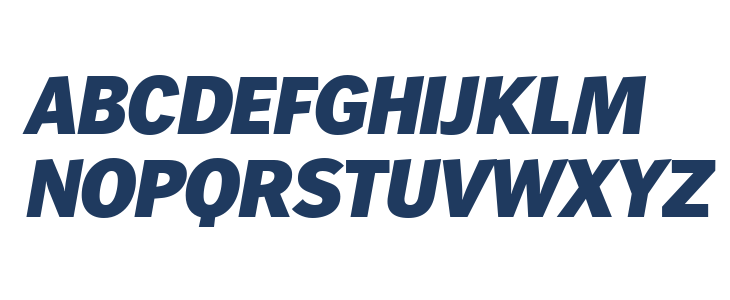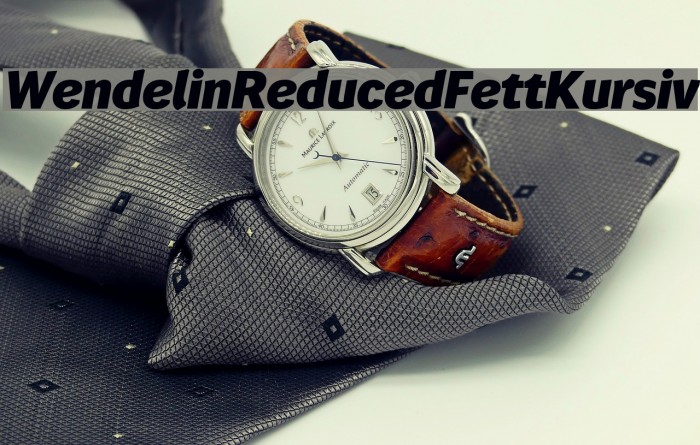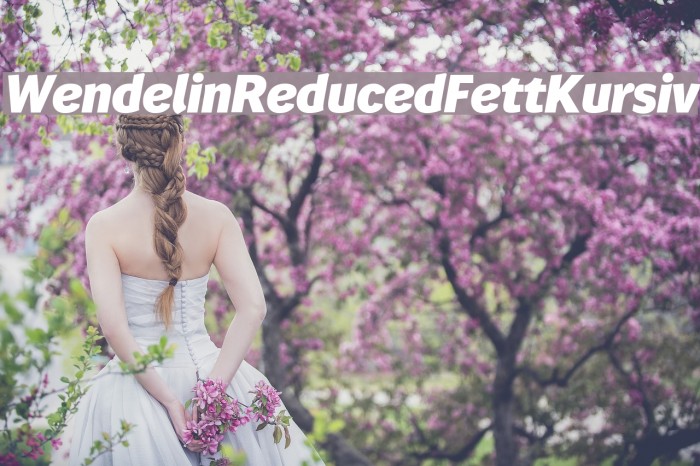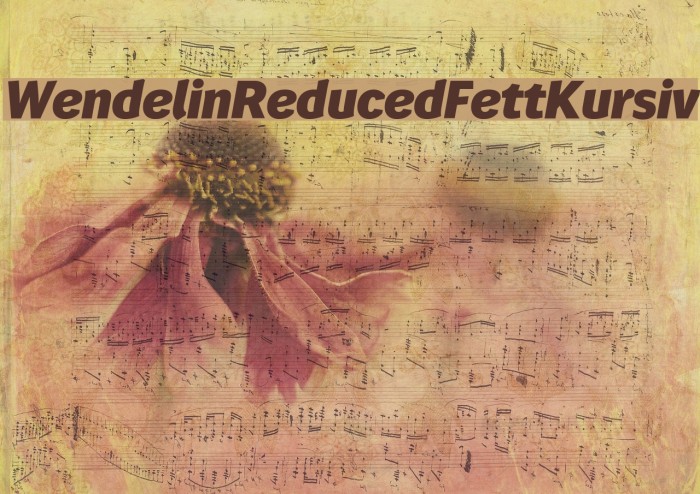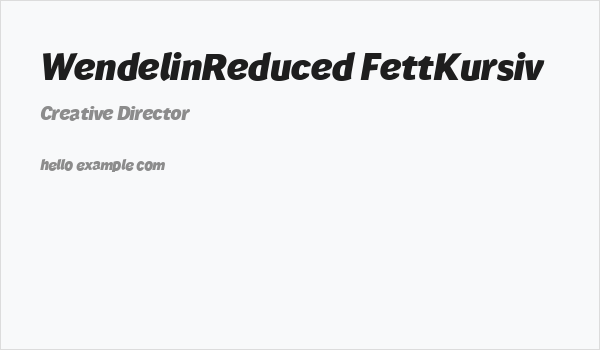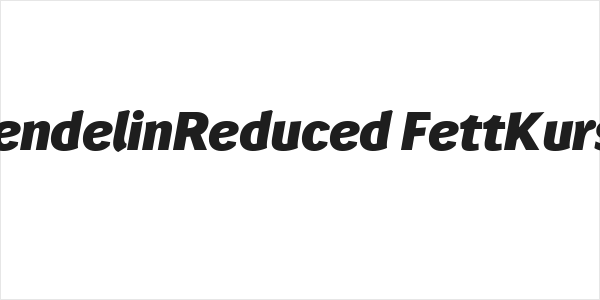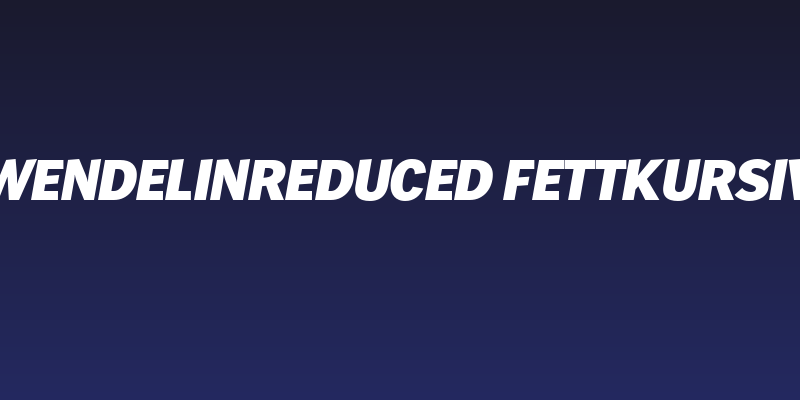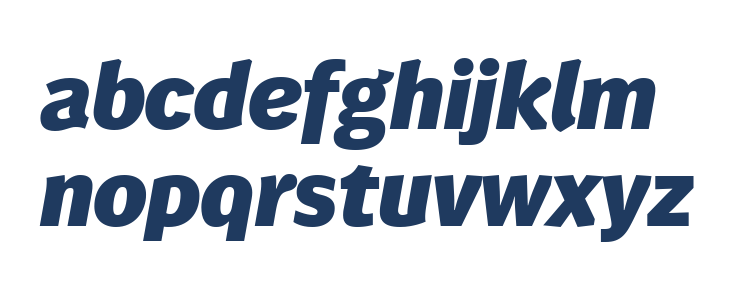
WendelinReduced-FettKursiv Font
WendelinReduced-FettKursiv Description
This font exhibits a bold and dynamic presence with its italicized style, creating a sense of movement and emphasis. The characters are robust and slightly condensed, offering a strong visual impact. The strokes are consistent in thickness, providing a uniform appearance across all characters. The font's design is modern and clean, making it suitable for a variety of applications where a bold statement is needed. The italic slant adds a touch of elegance and sophistication, enhancing its versatility.
Use CaseHeadlines, Logos, Advertising
Proposed ProjectsIdeal for branding, advertising, headlines, and any design project requiring a strong, modern typeface.